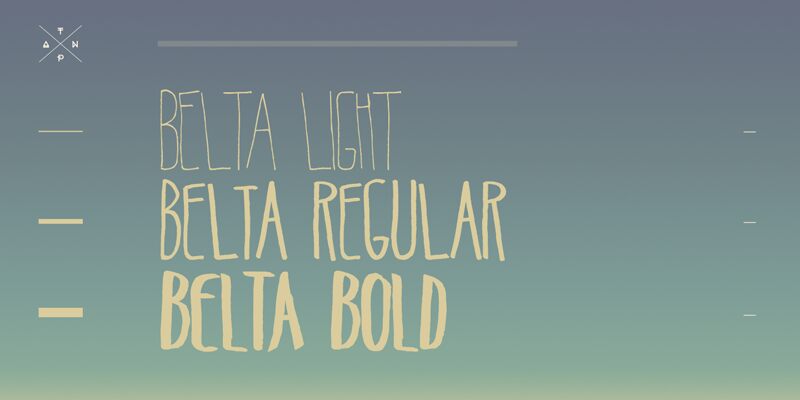
Belta by Julia Martinez Diana of Antipixel is a free handwritten display font with tall, narrow letters and an unmistakably handmade line. Its uneven stroke widths and softly wavering edges give the forms a quick, inked quality. Small shifts in height and alignment keep the lettering lively without making it look careless.
Poster headlines are its strongest use, especially for independent music, arts events, and informal exhibitions that benefit from lettering with a personal touch. The same elongated shapes suit album covers and hand-crafted product packaging, linking these different settings through a lean silhouette and spontaneous drawing style.